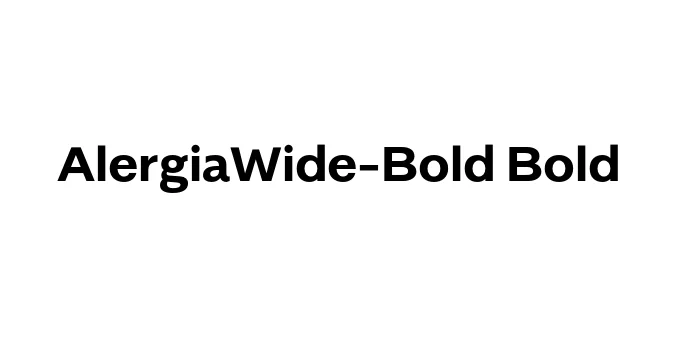
AlergiaWide-Bold Bold
Designed by Mateusz Machalski
Alergia Wide Bold is a sophisticated and contemporary typeface designed by the renowned Polish typographer Mateusz Machalski. As part of a larger, versatile superfamily, this font bridges the gap between technical geometric precision and organic humanist forms. Its wide proportions are specifically crafted to command attention, offering a sturdy and reliable aesthetic that is ideal for modern display applications.
The design of Alergia Wide Bold features open apertures and a generous x-height, ensuring that the typeface remains highly legible even in demanding environments. This font is particularly effective for projects that require a sense of stability and innovation. From high-end branding to sleek digital user interfaces, Alergia Wide Bold provides a professional finish that elevates the visual impact of any graphic design work.
AlergiaWide-Bold Bold Best Uses
Perfect for creating impactful logos and distinctive corporate identities.
Ideal for high-impact titles in magazines, blogs, and print media.
Excellent for hero sections and bold UI elements in modern websites.
Highly effective for posters, billboards, and social media graphics.